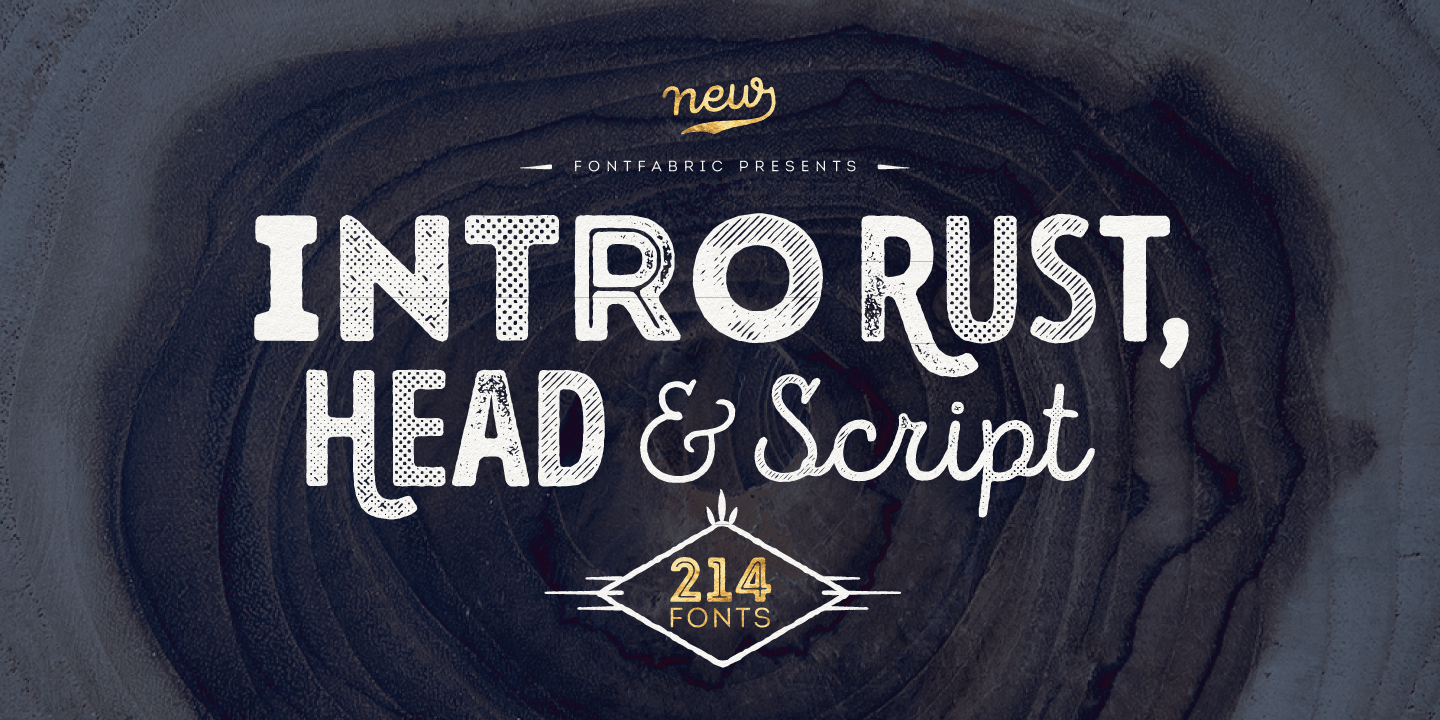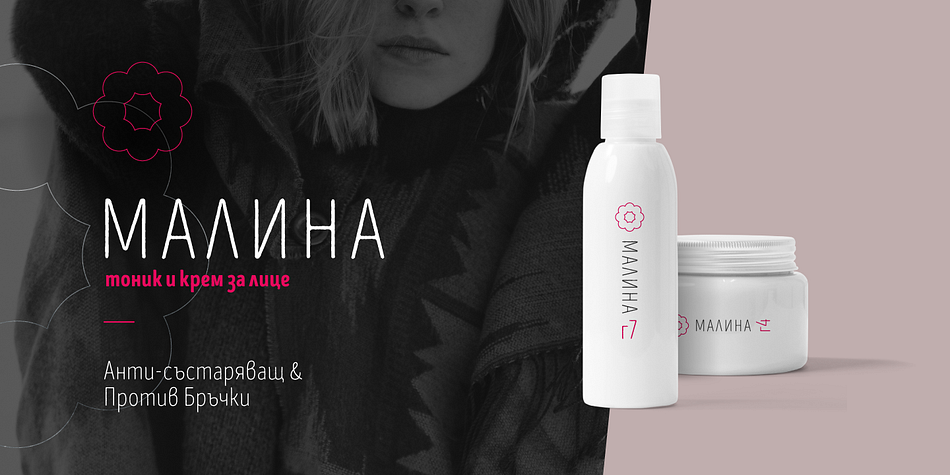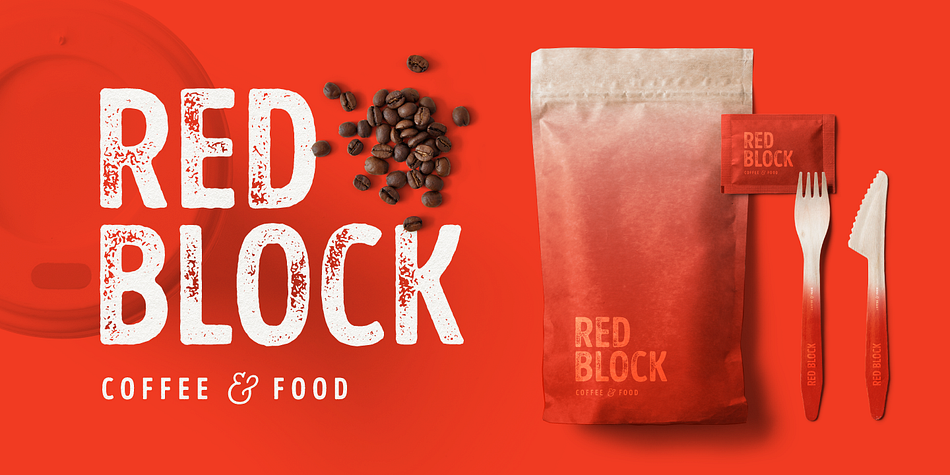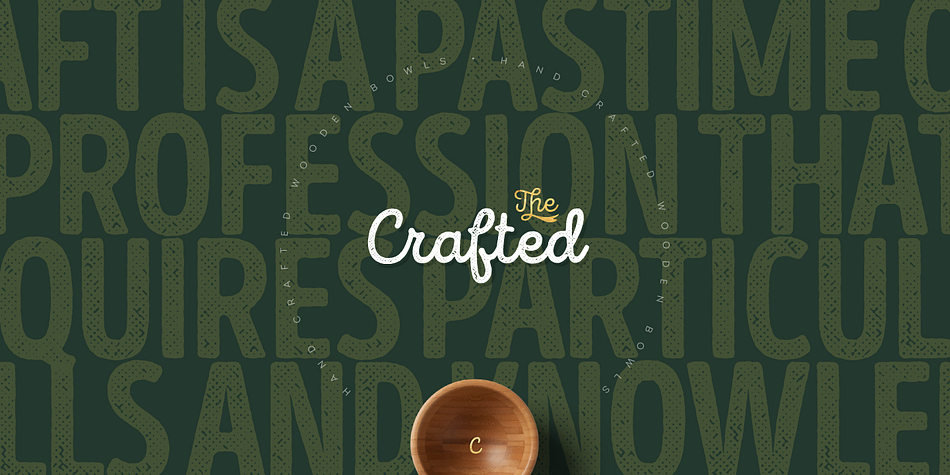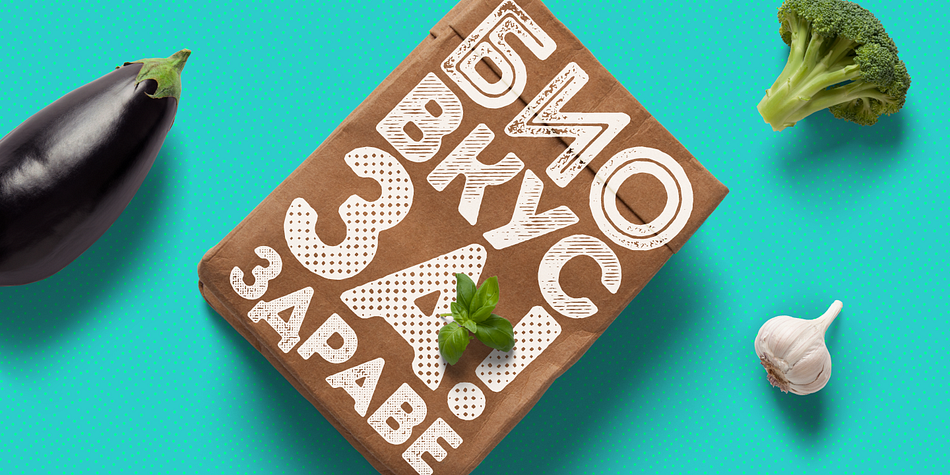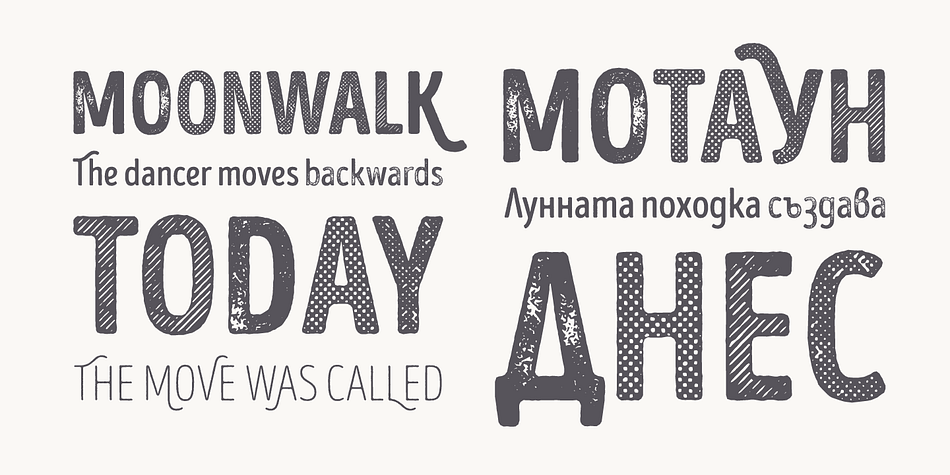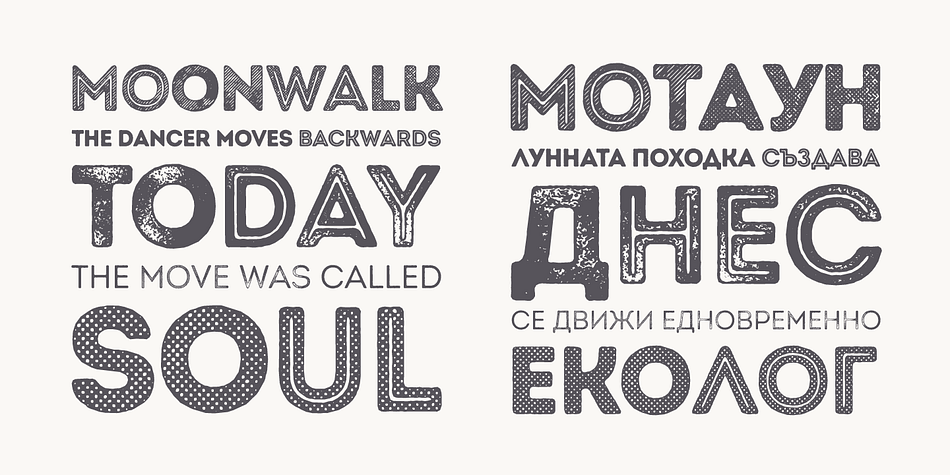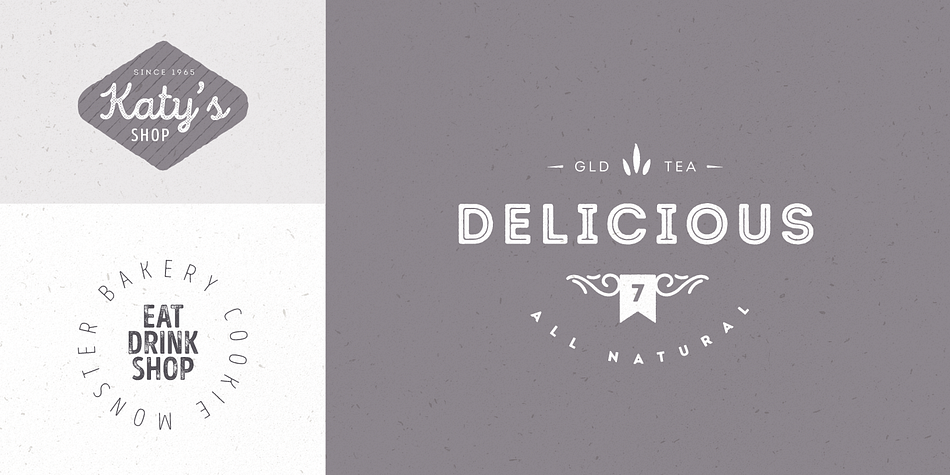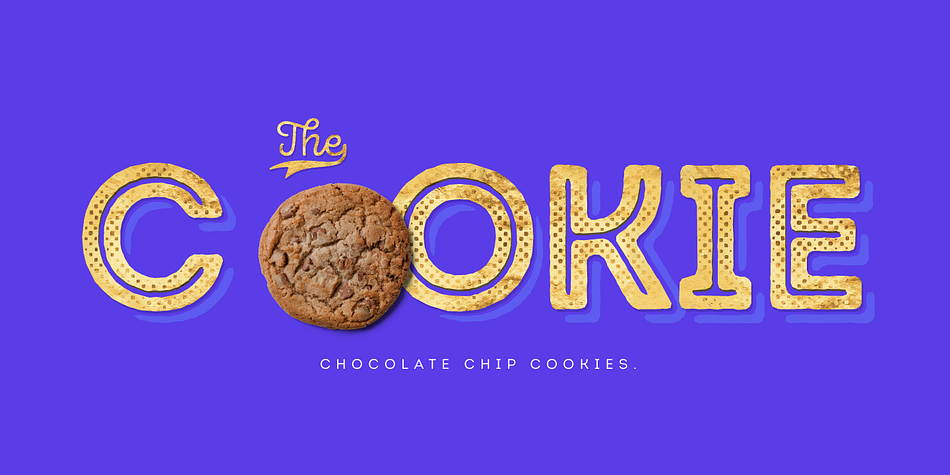
Designed by Radomir Tinkov, Ani Petrova and Svetoslav Simov, Intro Rust Complete is a multiple classification font collection published by Fontfabric.
Intro Rust is one of the biggest packages on the market, including 214 fonts.
The font family is a rough version of the famous Intro and includes 4 sub-families Intro Rust, Intro Script, Intro Head and Intro Goodies.
For all types of design projects like print materials and web design, with just a little imagination you can watch them come alive.
Intro Rust fonts will make them more vivid than ever.
You want to make a greeting card, a package design, or even a brand identity?
Feel free to play with all the patterns and shapes, scripts or those cool fonts with the dots to clinch your next successful project.